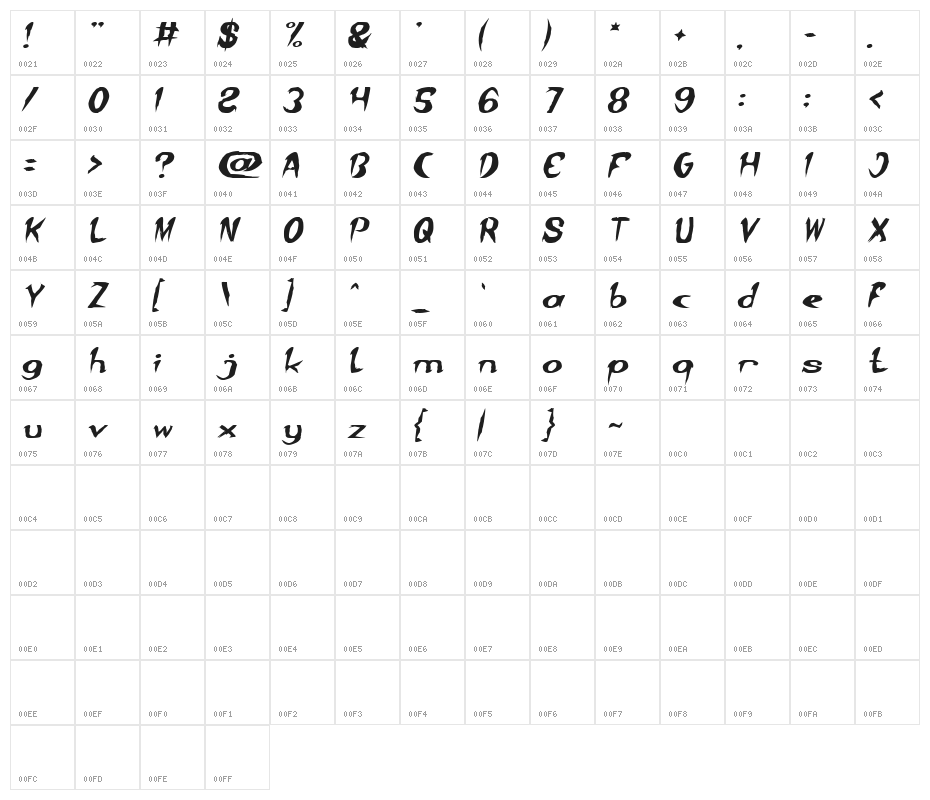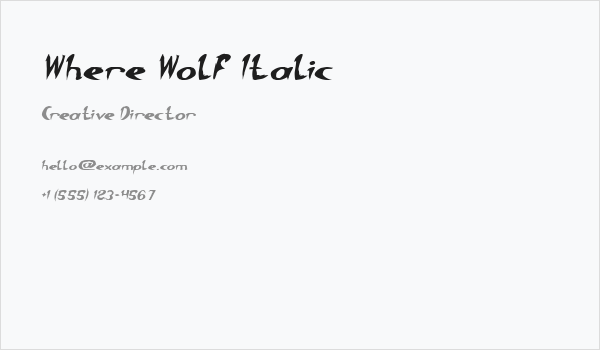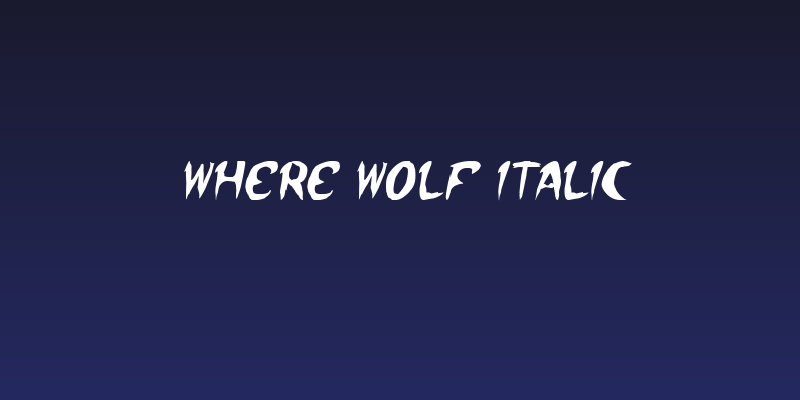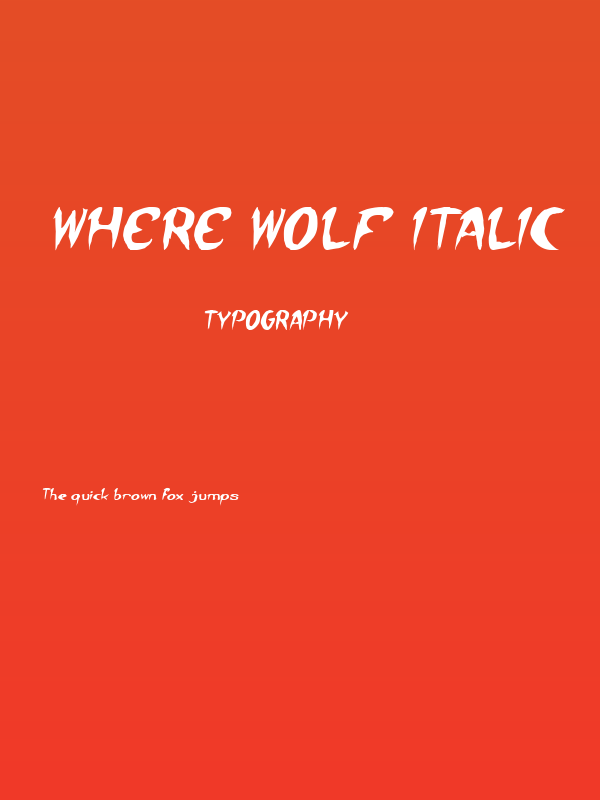
Where Wolf Italic Font
This font features a bold and dynamic style with sharp, angular edges and a slightly italicized slant. The characters exhibit a sense of movement and energy, reminiscent of claw marks or brush strokes. The uppercase letters are particularly striking, with exaggerated serifs and a sense of aggression. Lowercase letters maintain the same energetic style, providing a cohesive look across the typeface. Numbers and special characters are designed to match the overall aesthetic, making them suitable for attention-grabbing designs. The font's unique style makes it ideal for projects that require a dramatic and impactful visual presence.
| Proposed Projects | Ideal for horror-themed posters, video game titles, Halloween event flyers, and edgy branding projects. |